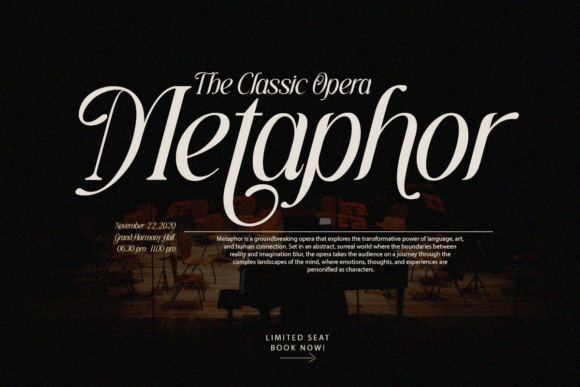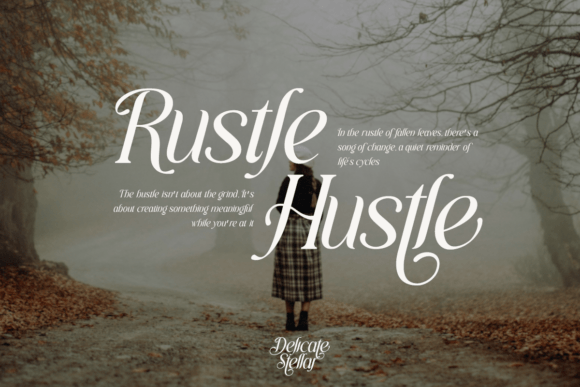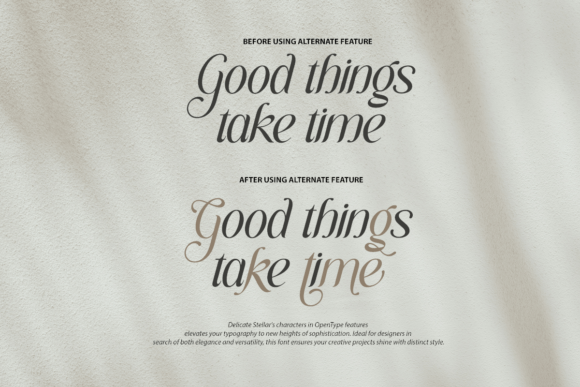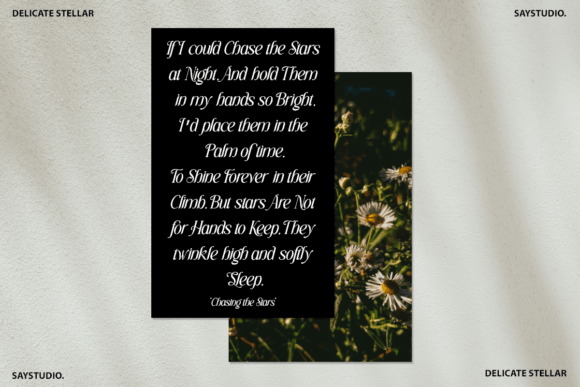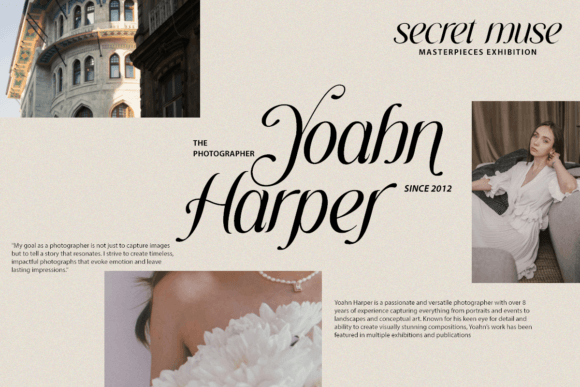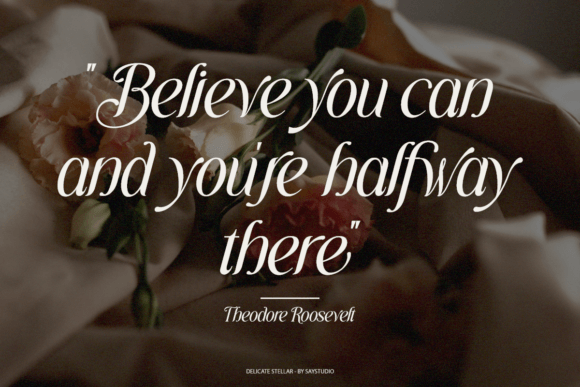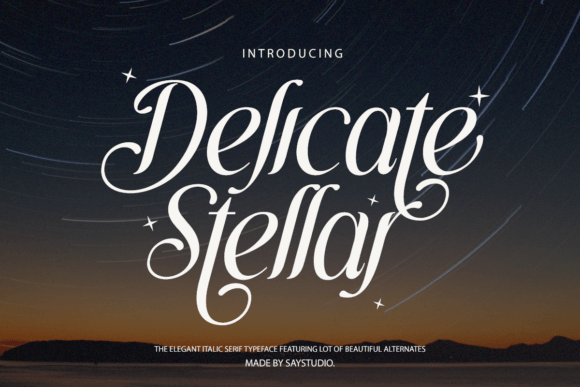
Introducing Delicate Stellar: The Elegant Italic Font for Refined Designs
In the world of typography, fonts play a crucial role in conveying the tone and personality of a brand or design. For those seeking an elegant and refined touch, Delicate Stellar is an exquisite italic font that combines the sophistication of serif and script styles. This beautiful font is perfect for designers and crafters looking to elevate their projects with a sense of luxury and poise.
What is Delicate Stellar?
Delicate Stellar is an elegant italic font that seamlessly blends the classic charm of serif fonts with the fluidity of script typography. The result is a unique and captivating font that exudes refinement and sophistication. Its delicate lines and curves make it an ideal choice for designs that require a touch of elegance, such as brand identity, invitations, product labels, clothing design, and more.
Key Features of Delicate Stellar
Delicate Stellar offers a range of features that make it an exceptional font for designers and crafters. Some of its key features include:
- Stylistic Alternates: Delicate Stellar features stylistic alternates integrated into its OpenType features, providing great versatility and creative freedom for any design. This means that designers can easily swap out letters and words to create a unique and customized look.
- Elegant Serif and Script Combination: The font’s combination of serif and script styles creates a distinctive and captivating visual effect that sets it apart from other fonts.
- Italic Style: Delicate Stellar’s italic style adds a touch of sophistication and elegance to any design, making it perfect for projects that require a refined look.
Use Cases for Delicate Stellar
Delicate Stellar is a versatile font that can be used in a variety of design projects, including:
- Brand Identity: Use Delicate Stellar to create a sophisticated and elegant brand identity that reflects your company’s values and personality.
- Elegant Invitations: Add a touch of refinement to your invitations with Delicate Stellar, perfect for weddings, formal events, and more.
- Product Labels: Elevate your product labels with Delicate Stellar’s elegant and sophisticated style, perfect for luxury brands and high-end products.
- Clothing Design: Use Delicate Stellar to create stunning clothing designs that exude elegance and refinement.
Benefits of Using Delicate Stellar
By using Delicate Stellar in your design projects, you can:
- Elevate Your Designs: Add a touch of elegance and sophistication to your designs with Delicate Stellar’s refined style.
- Stand Out from the Crowd: Delicate Stellar’s unique combination of serif and script styles sets it apart from other fonts, making your designs more distinctive and memorable.
- Enhance Brand Identity: Use Delicate Stellar to create a consistent and cohesive brand identity that reflects your company’s values and personality.
Delicate Stellar is a stunning elegant italic font that offers a unique combination of serif and script styles. With its stylistic alternates, elegant design, and versatility, it’s perfect for designers and crafters looking to elevate their projects with a touch of refinement. Whether you’re creating brand identity, elegant invitations, product labels, or clothing designs, Delicate Stellar is an exceptional choice that will help you stand out from the crowd.